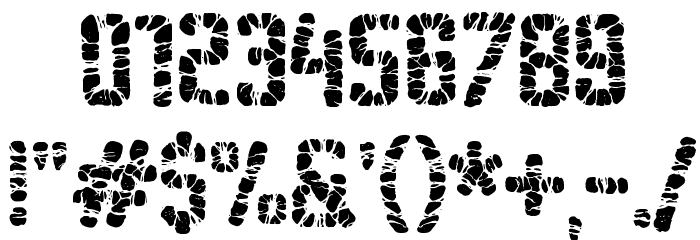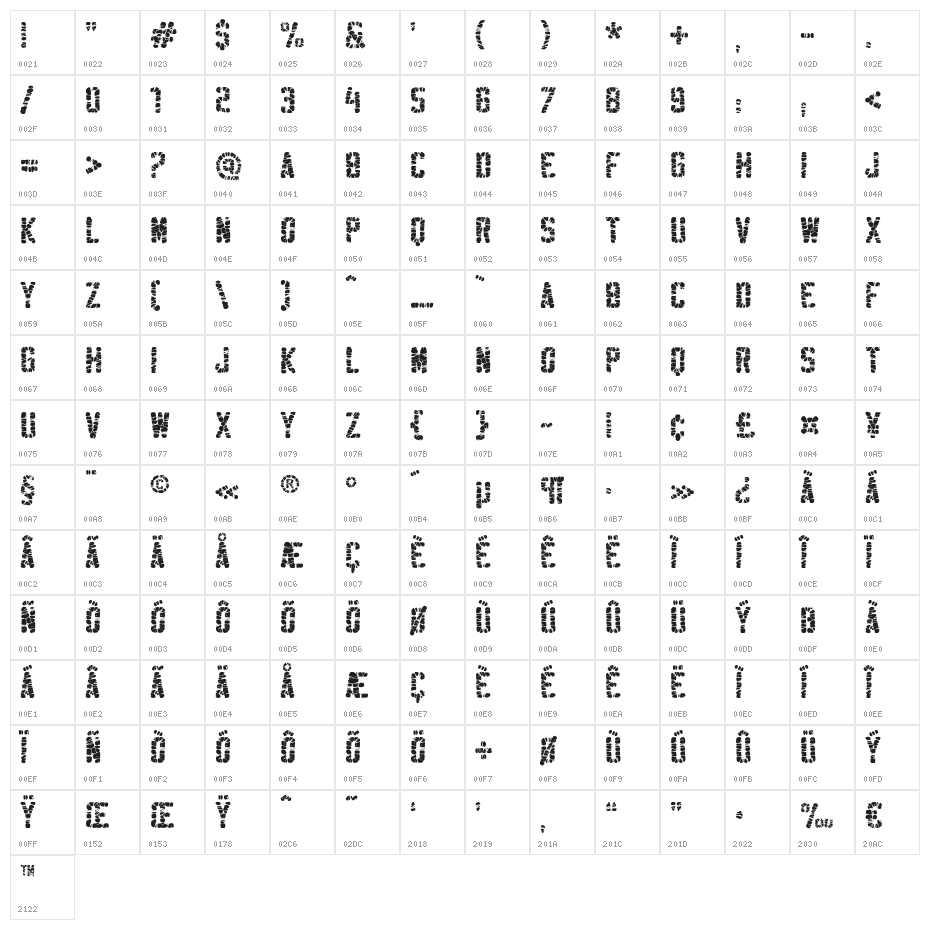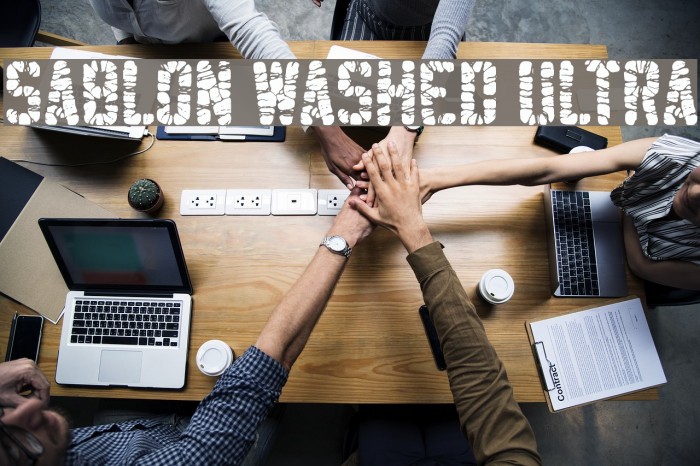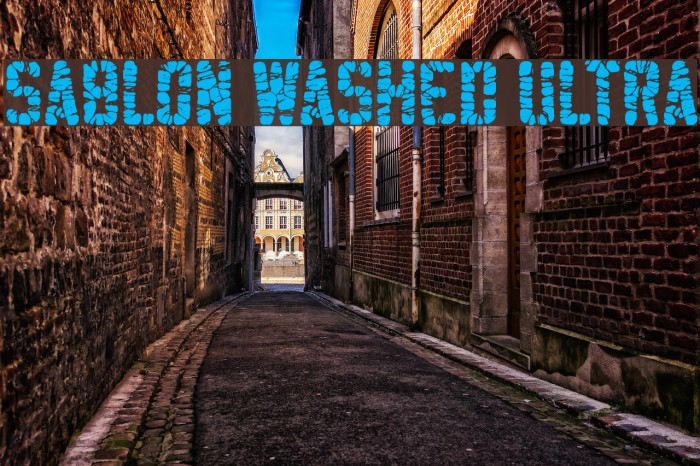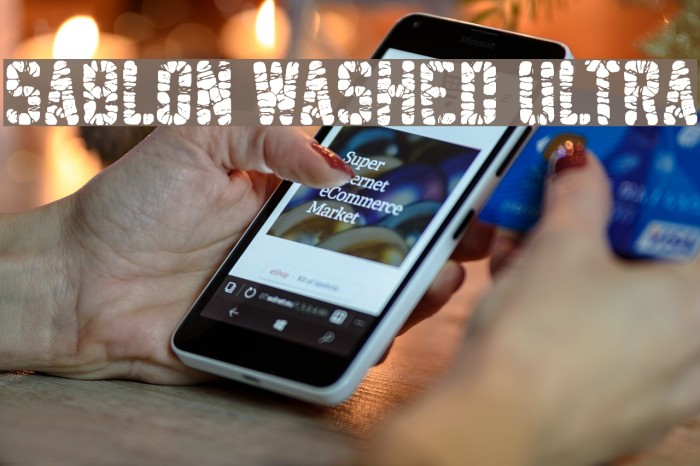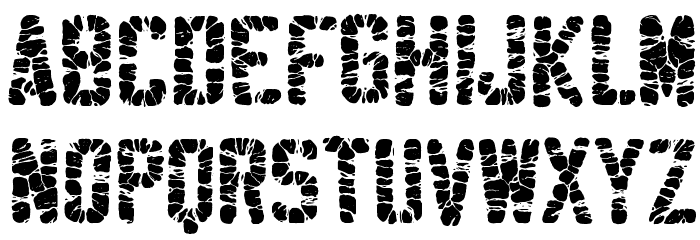
Sablon Washed Ultra Font
Sablon Washed Ultra Description
This font features a bold and textured design, reminiscent of a washed-out or distressed appearance. Each character is filled with irregular, organic shapes that create a unique, eye-catching pattern. The overall look is both rugged and artistic, making it stand out in any design. The uppercase and lowercase letters maintain a consistent style, with numbers and special characters following the same textured theme. This font is perfect for projects that require a bold statement or a creative, unconventional look.
| Proposed Projects | Ideal for posters, album covers, branding, and any creative projects that require a bold, artistic touch. |